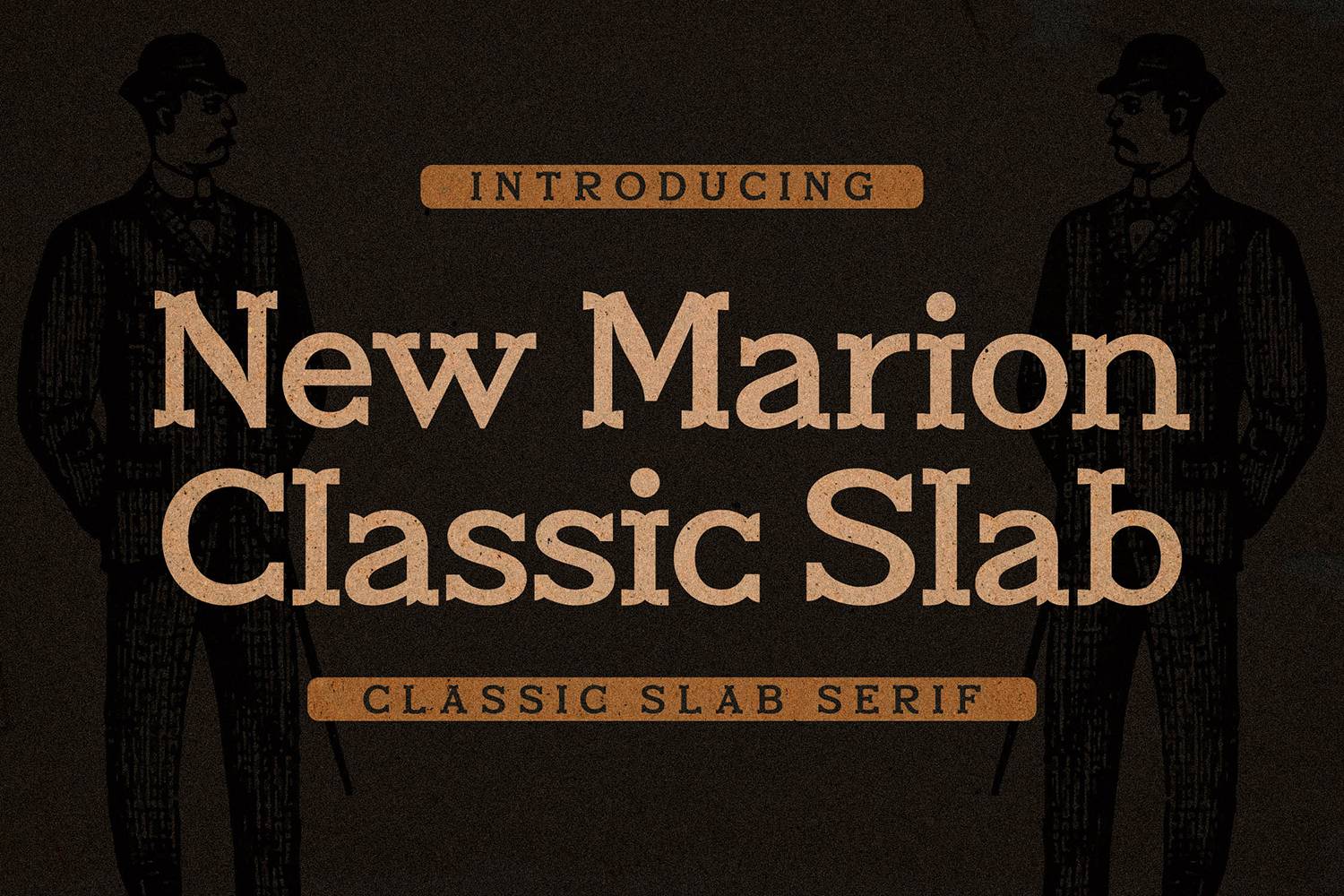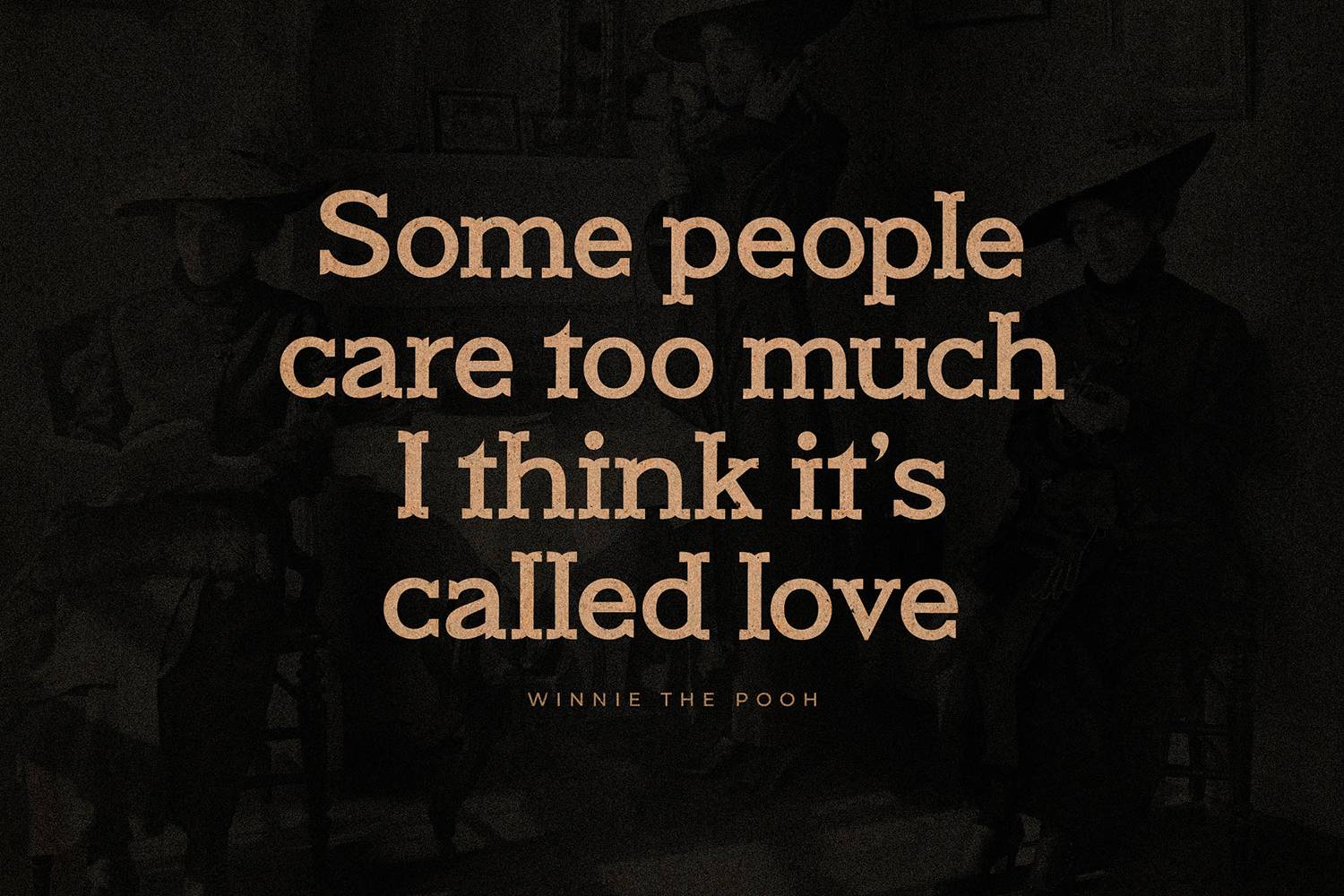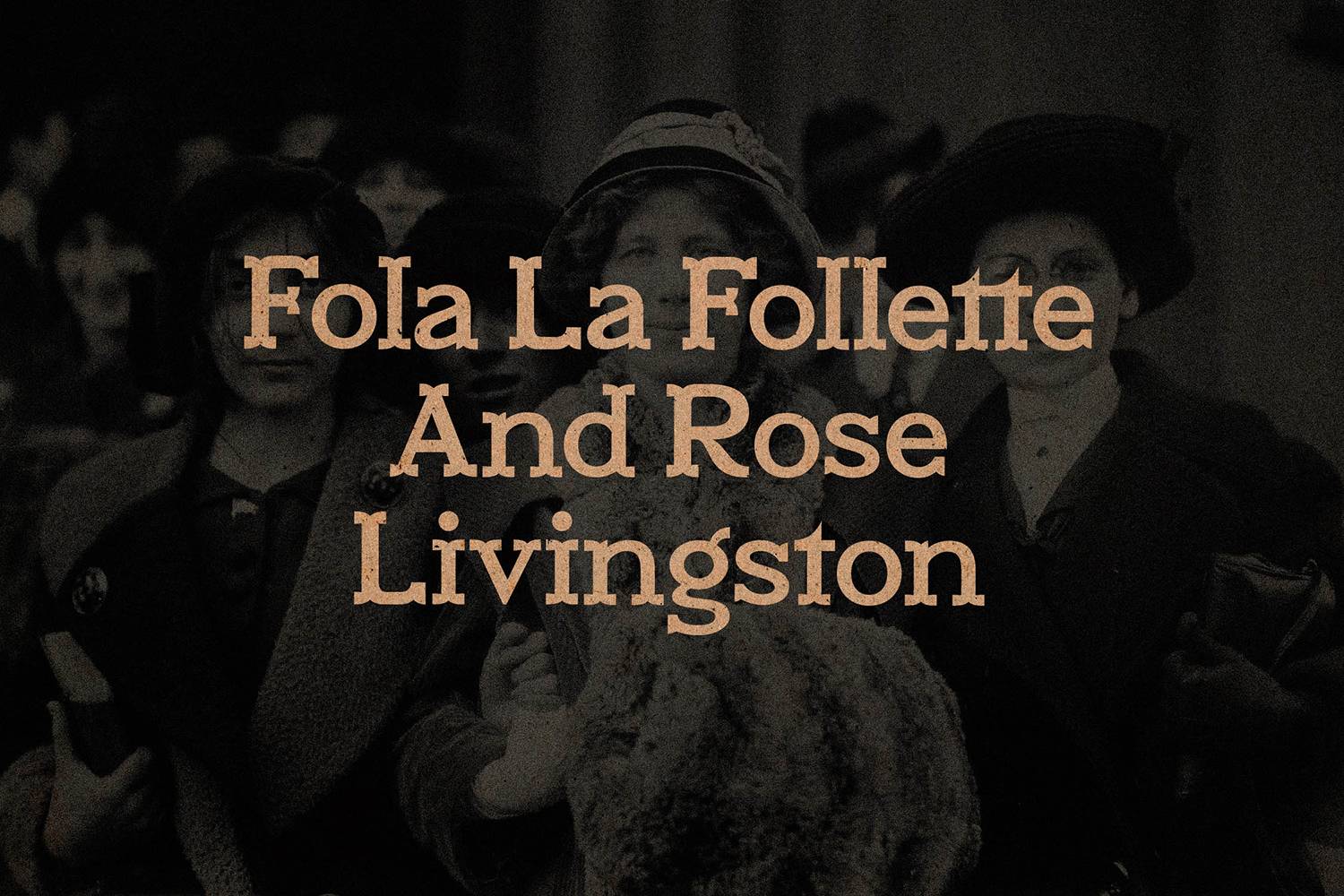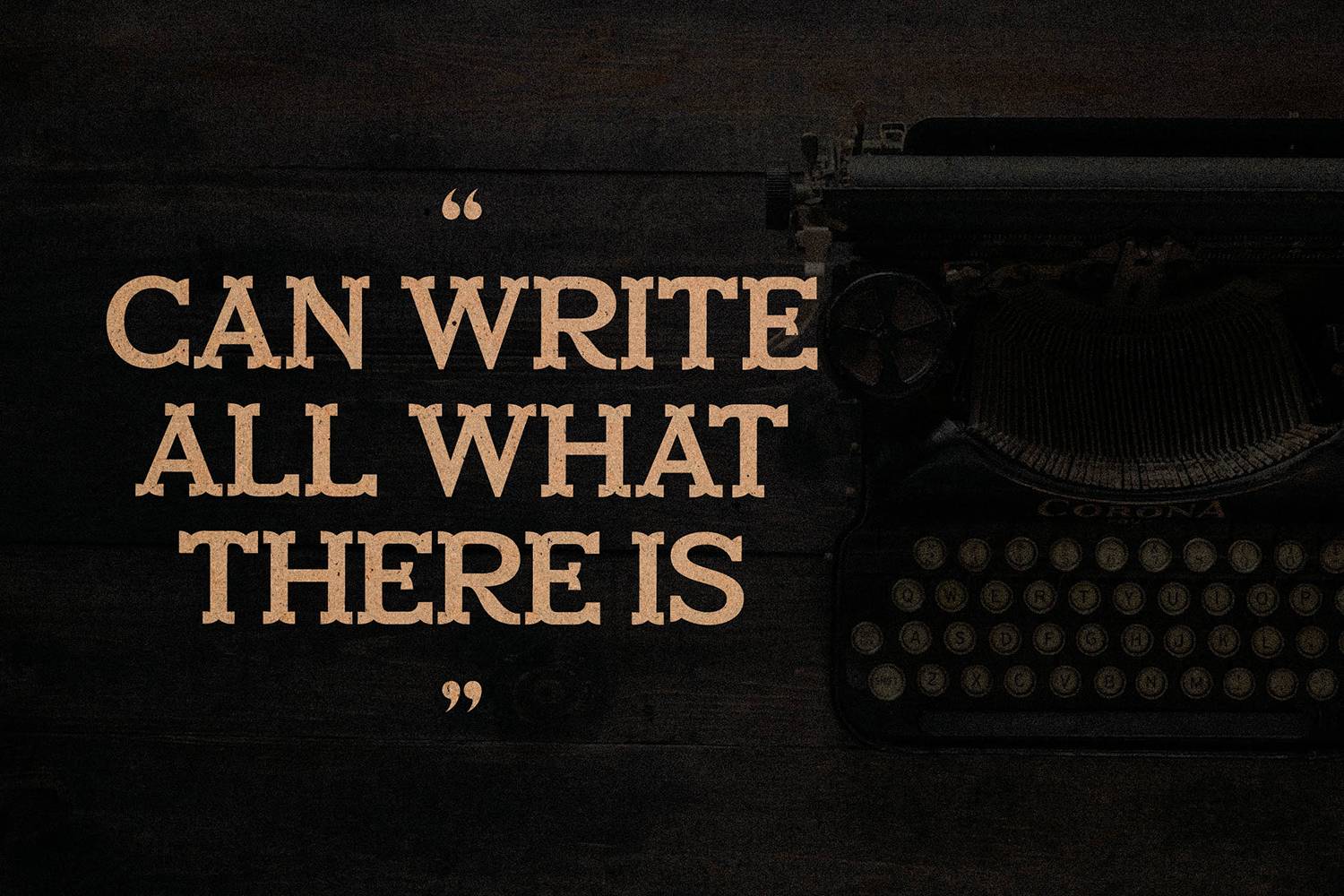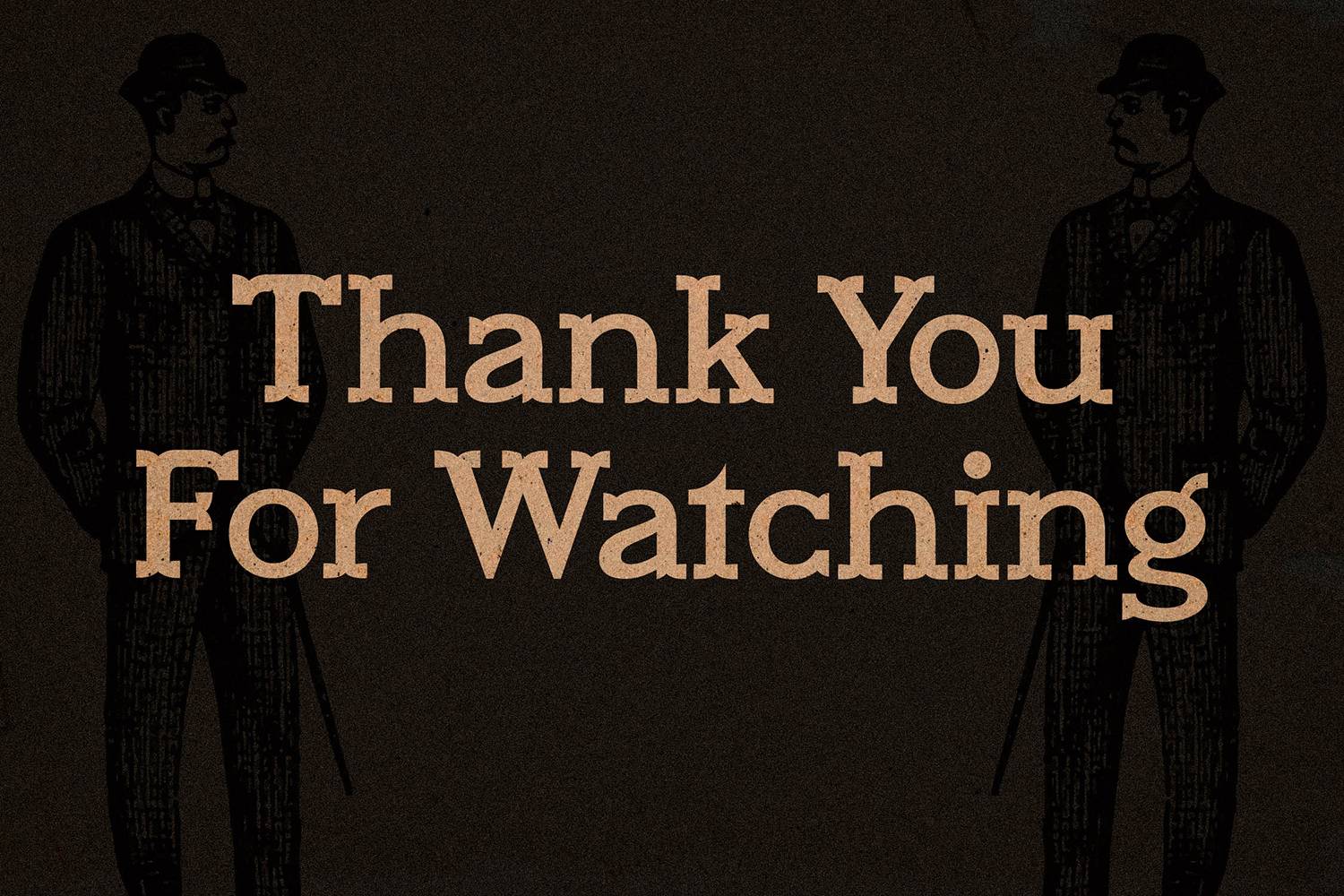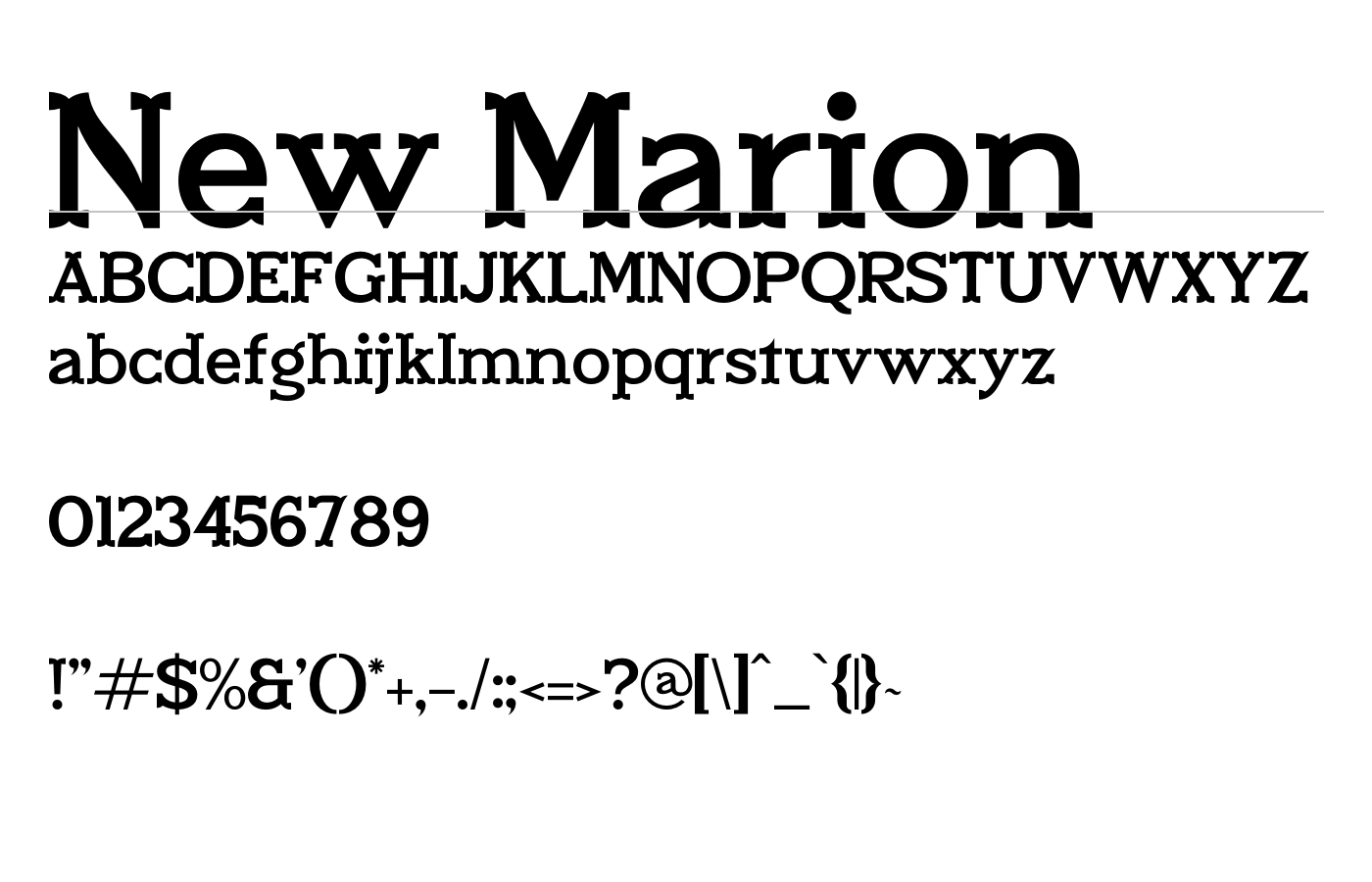
New Marion is a distinctive serif font with bold, sharp serifs and moderate stroke contrast, giving it a strong and confident presence. Its slightly condensed letterforms and elegant details make it ideal for sophisticated branding, editorial headlines, and packaging where a blend of classic style and modern edge is desired. This font works well to communicate authority and refinement while maintaining clarity and visual interest.
New Marion Font
About New Marion Font